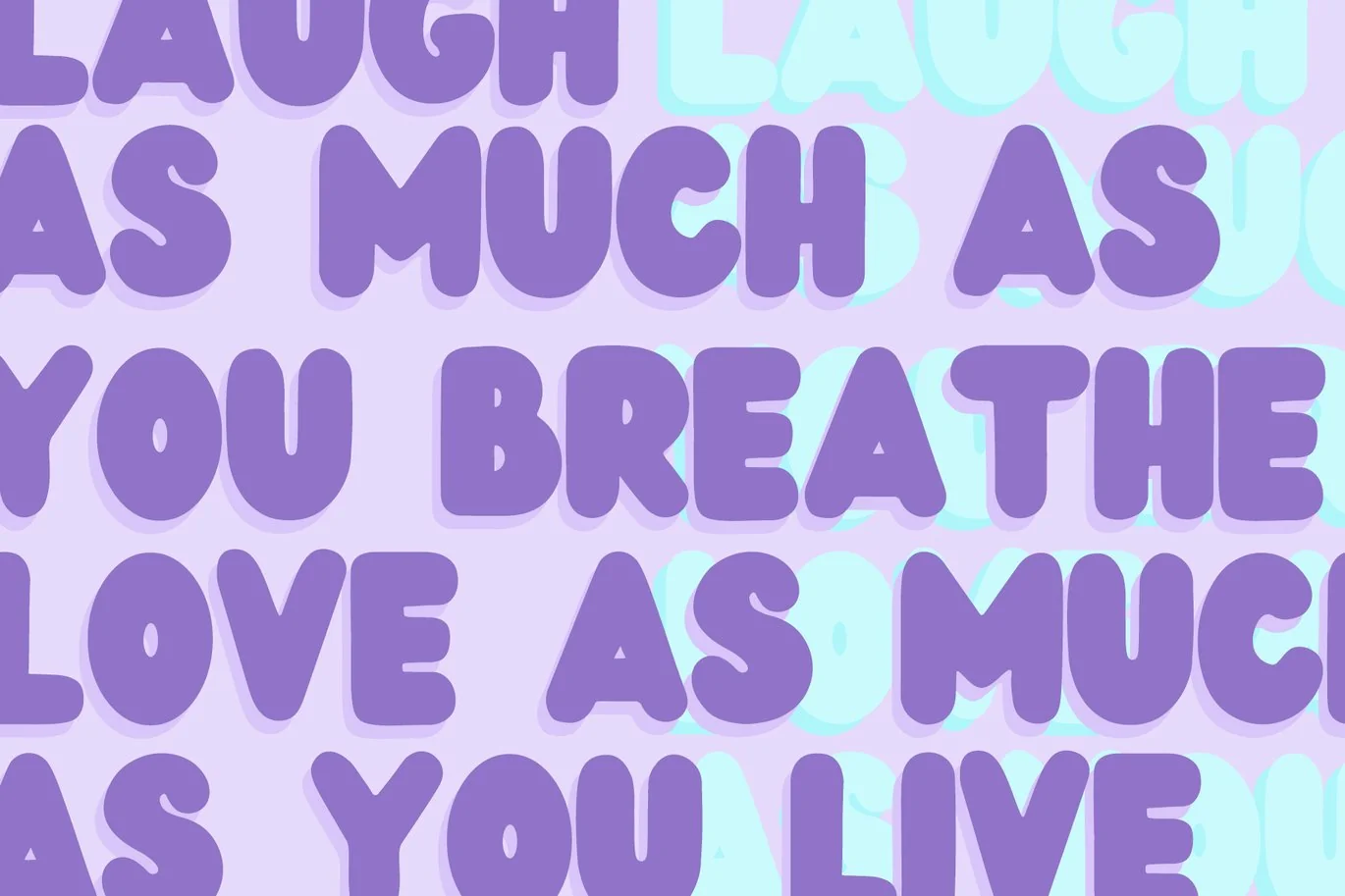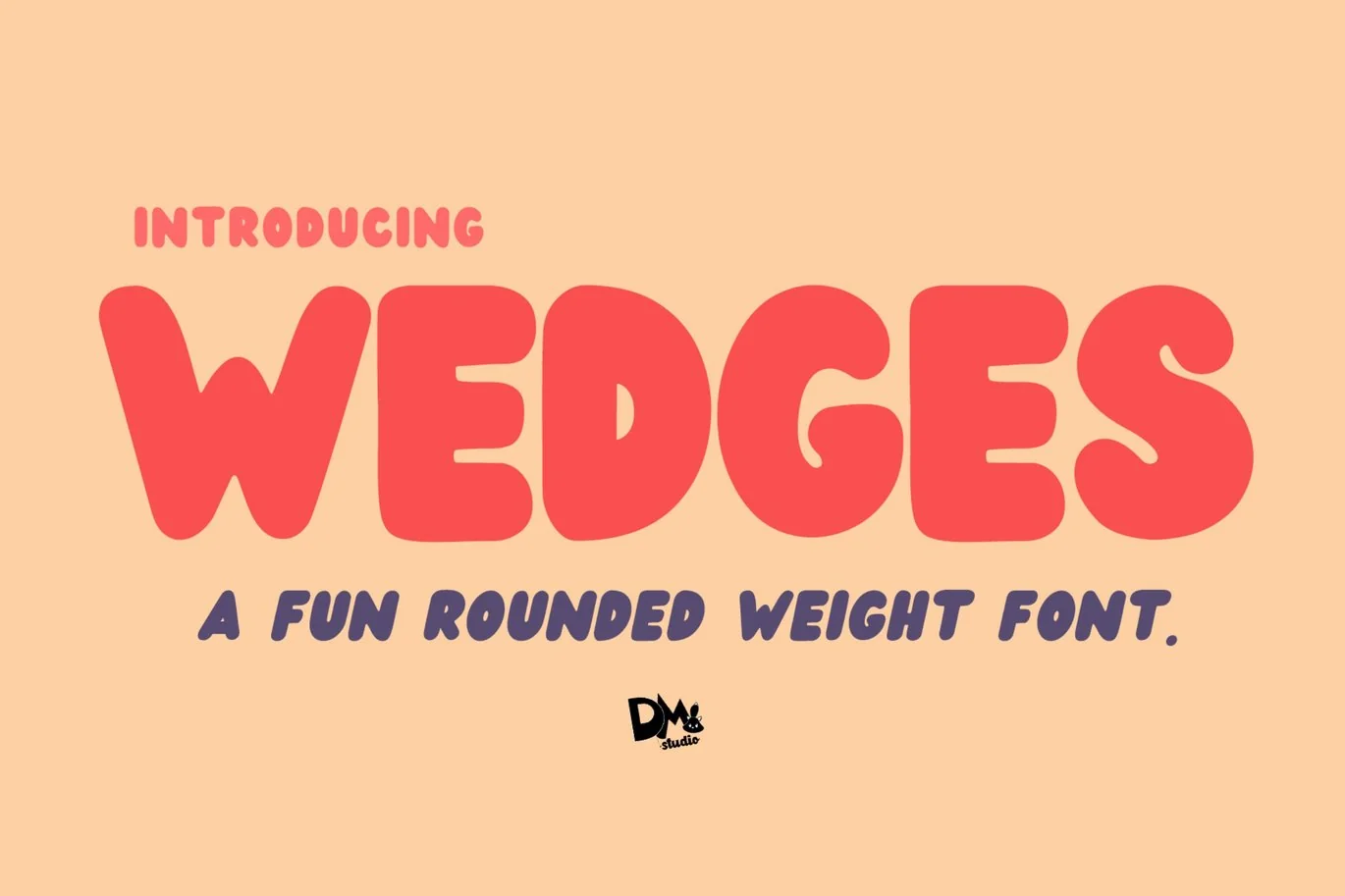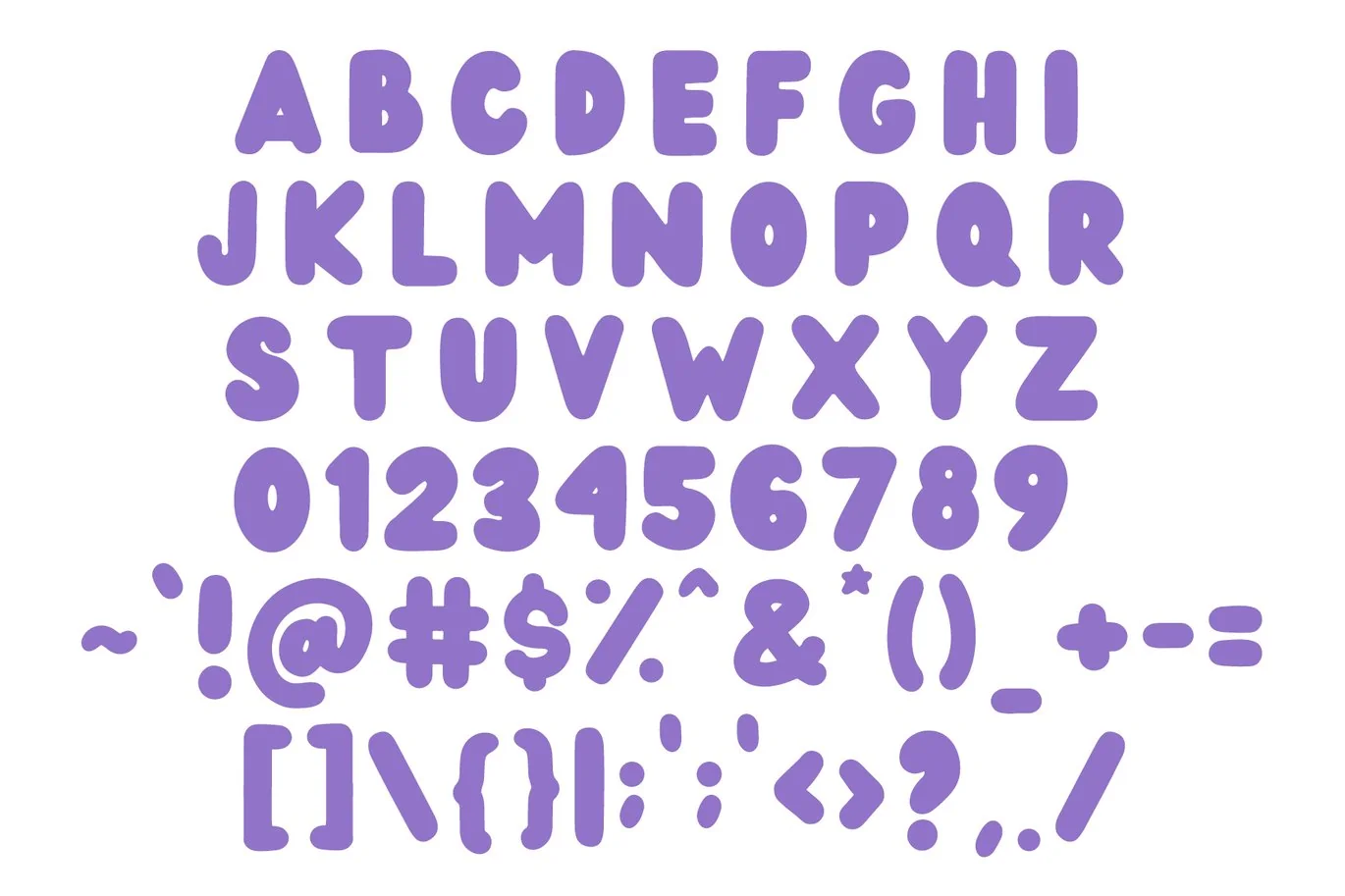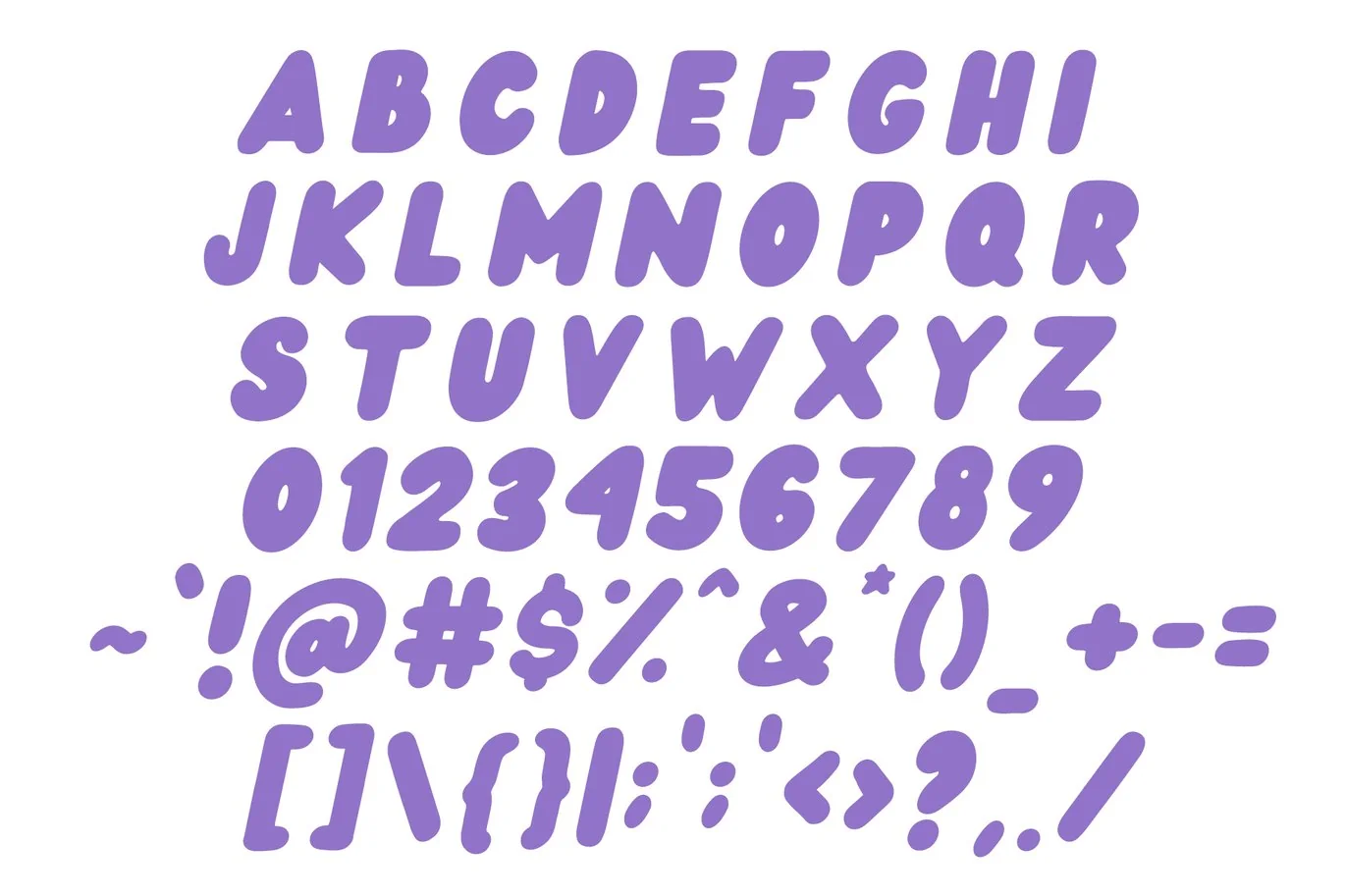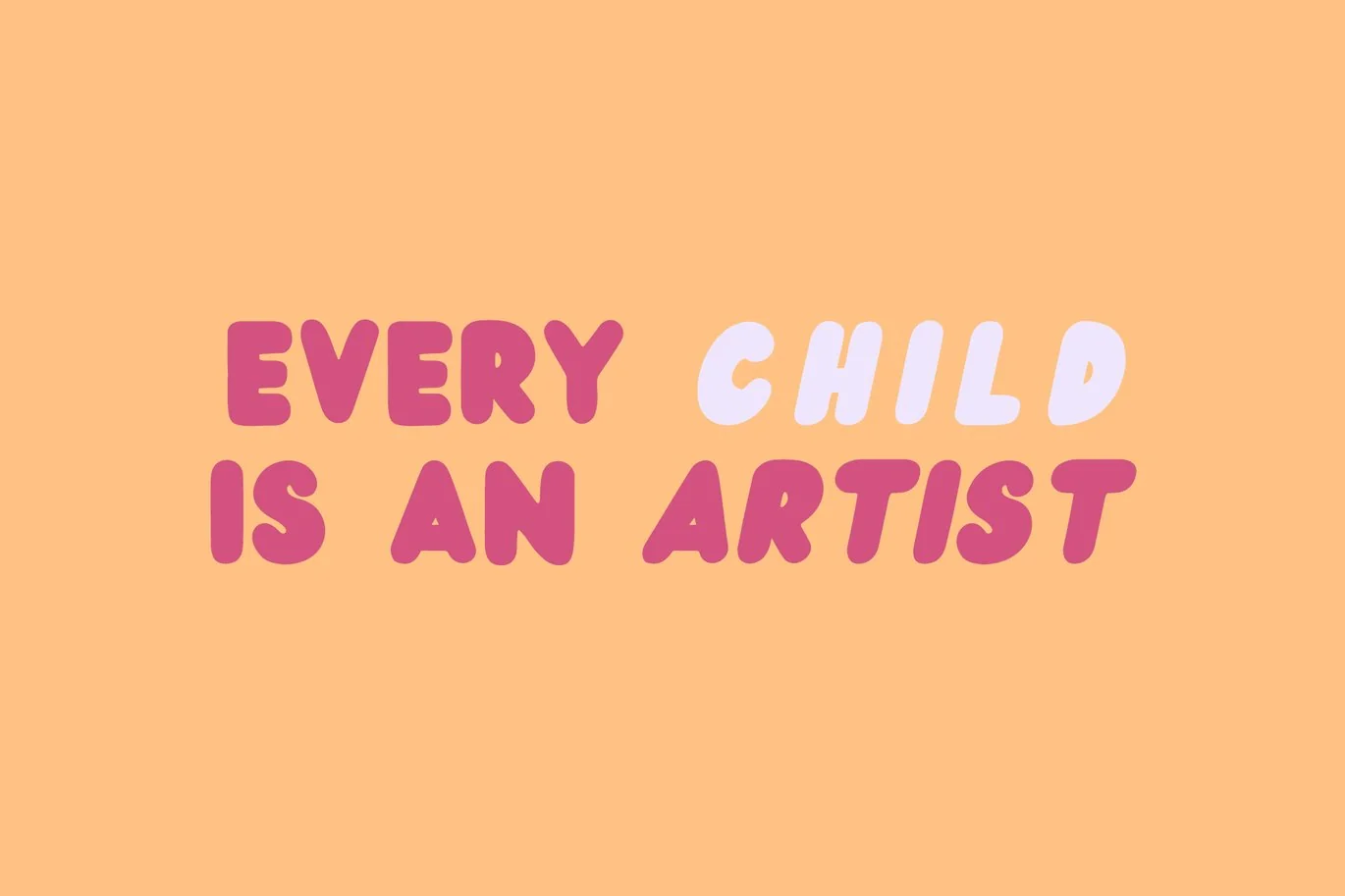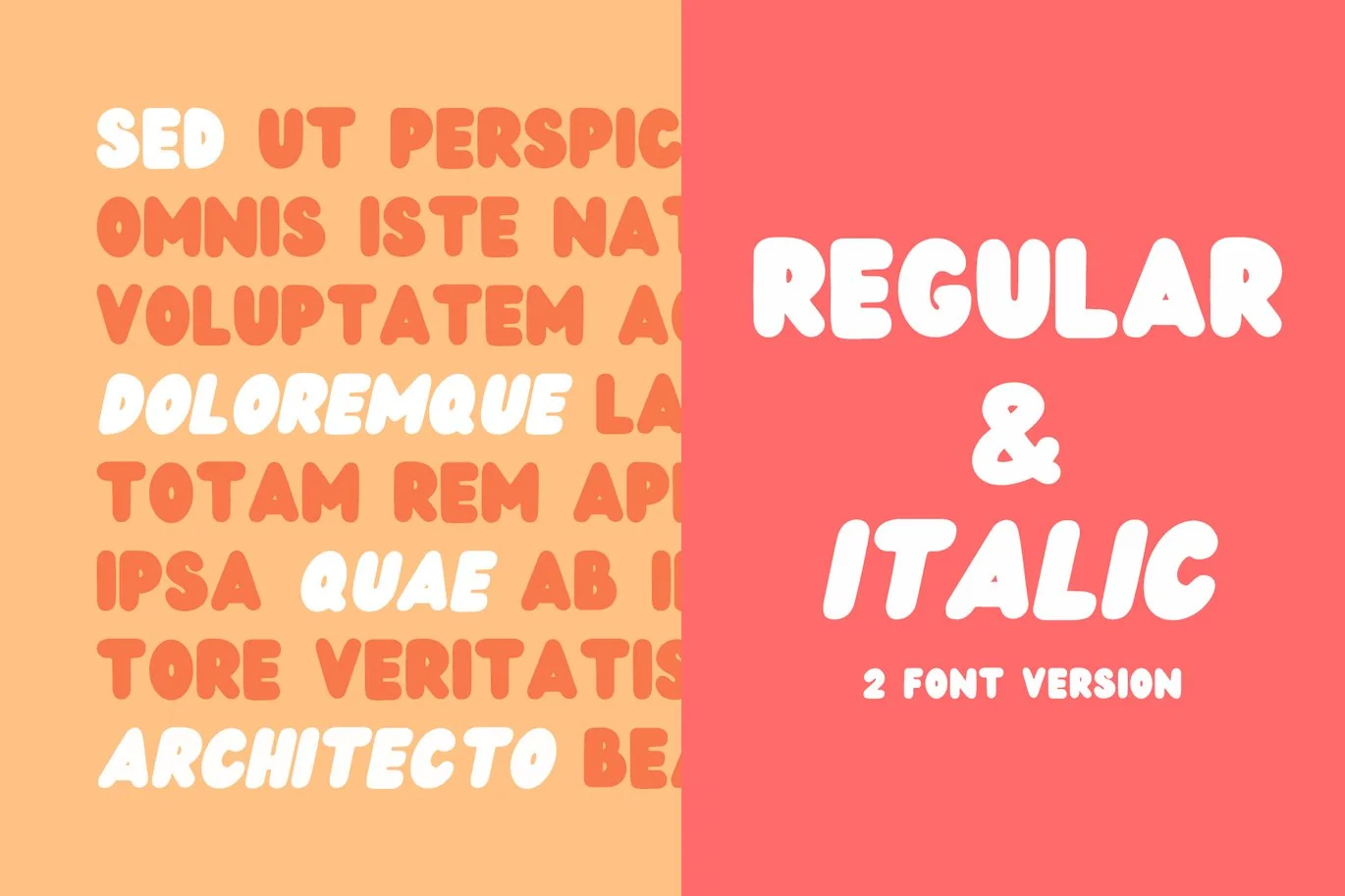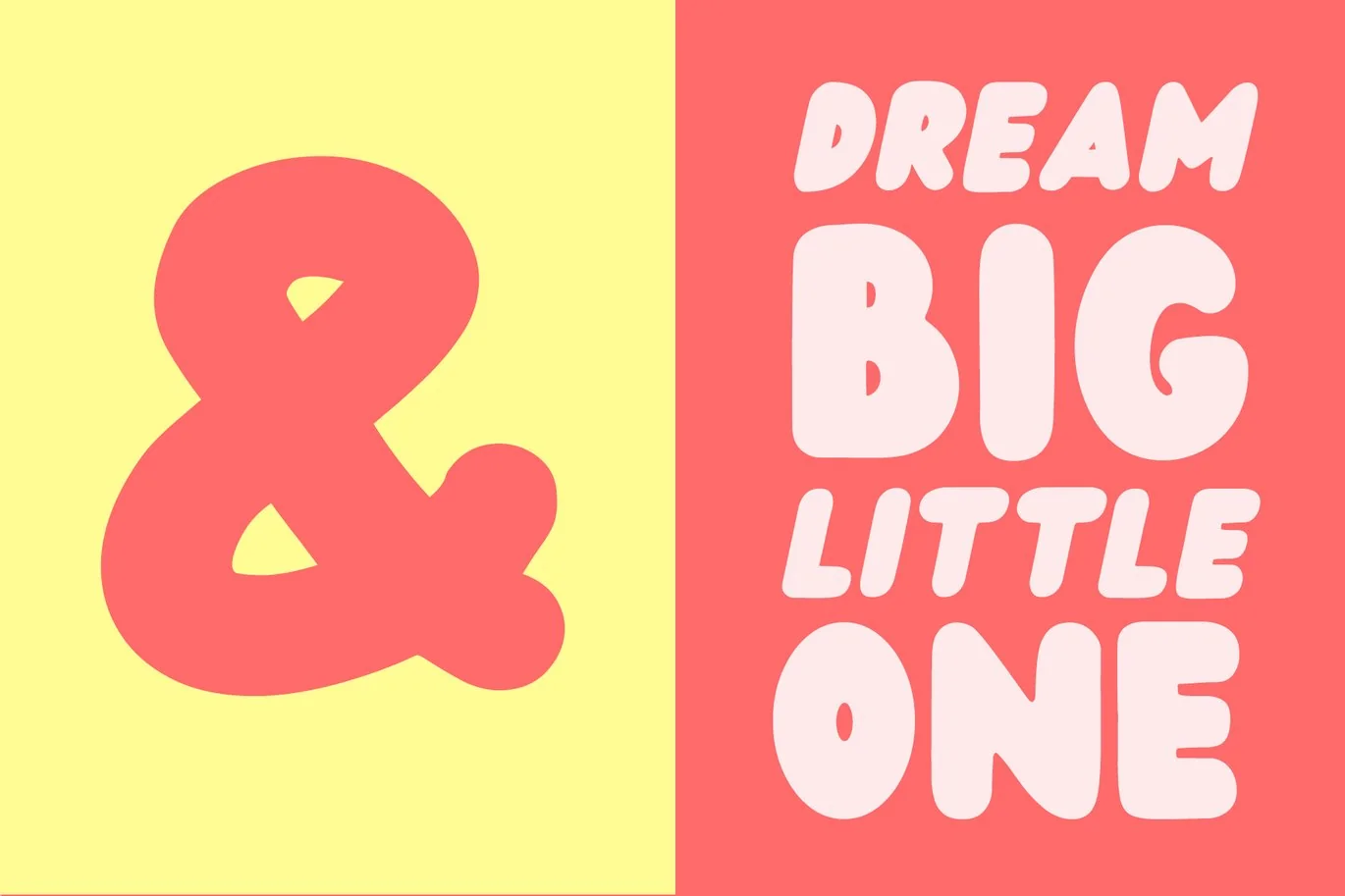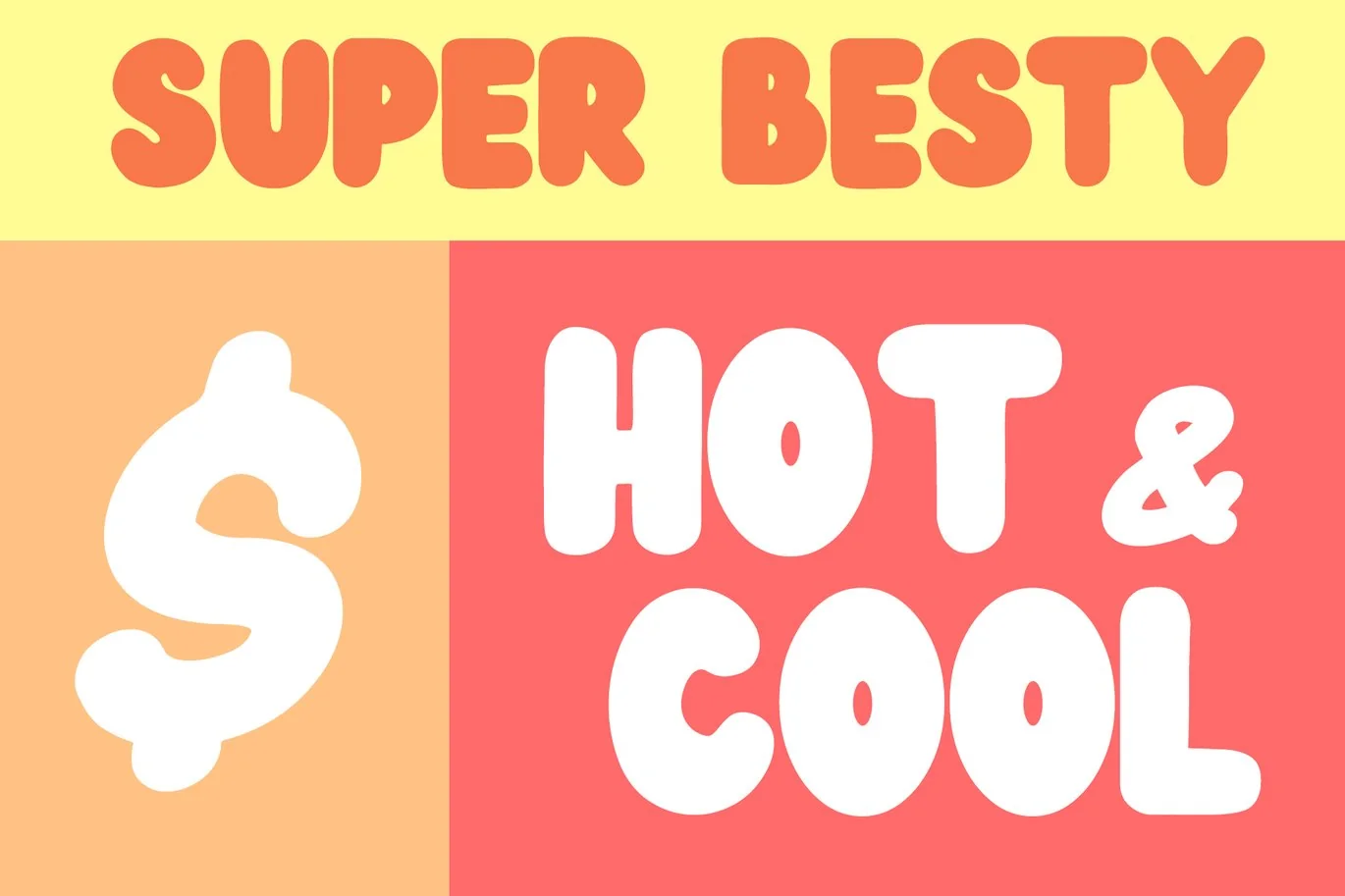
Wedges – Fun Rounded Weight Font
Introducing,
WEDGES – a Fun Rounded Weight Font !
Bold and plumpy rounded typeface. Never aged style. Versatile yet cute, stylish, and delicate handwritten font. Wedges has 2 versions, Regular and Italic.
- All in caps character set
- Numeric
- Symbols
- Regular and Italic version